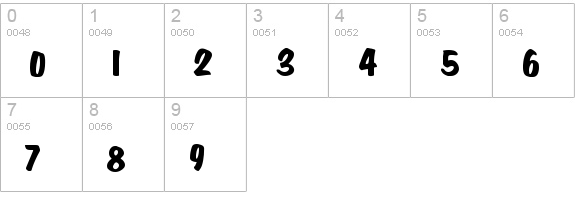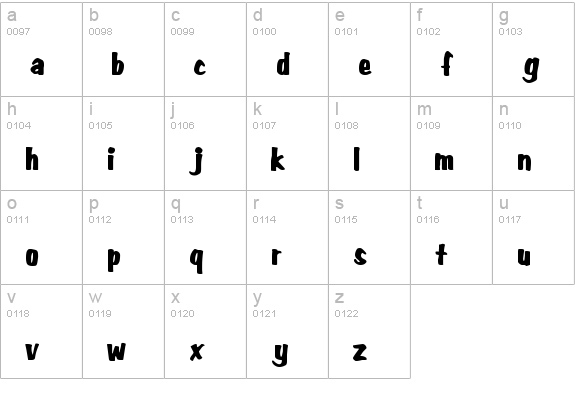
Introducing the captivating Jungle font, a wild and adventurous typeface that will transport your designs into the heart of the jungle. This font exudes a sense of untamed beauty and exotic charm, perfect for projects that require a touch of nature's wild side. With its bold and organic letterforms, Jungle font is sure to make a statement and stand out from the crowd. What's even more exciting is that Jungle font is available for free download at FontsMarket.com. Yes, you read that right - this stunning font can be yours at no cost, allowing you to unleash your creativity without breaking the bank. So why wait? Dive into the lush world of Jungle font and let your designs come alive with the spirit of the jungle.